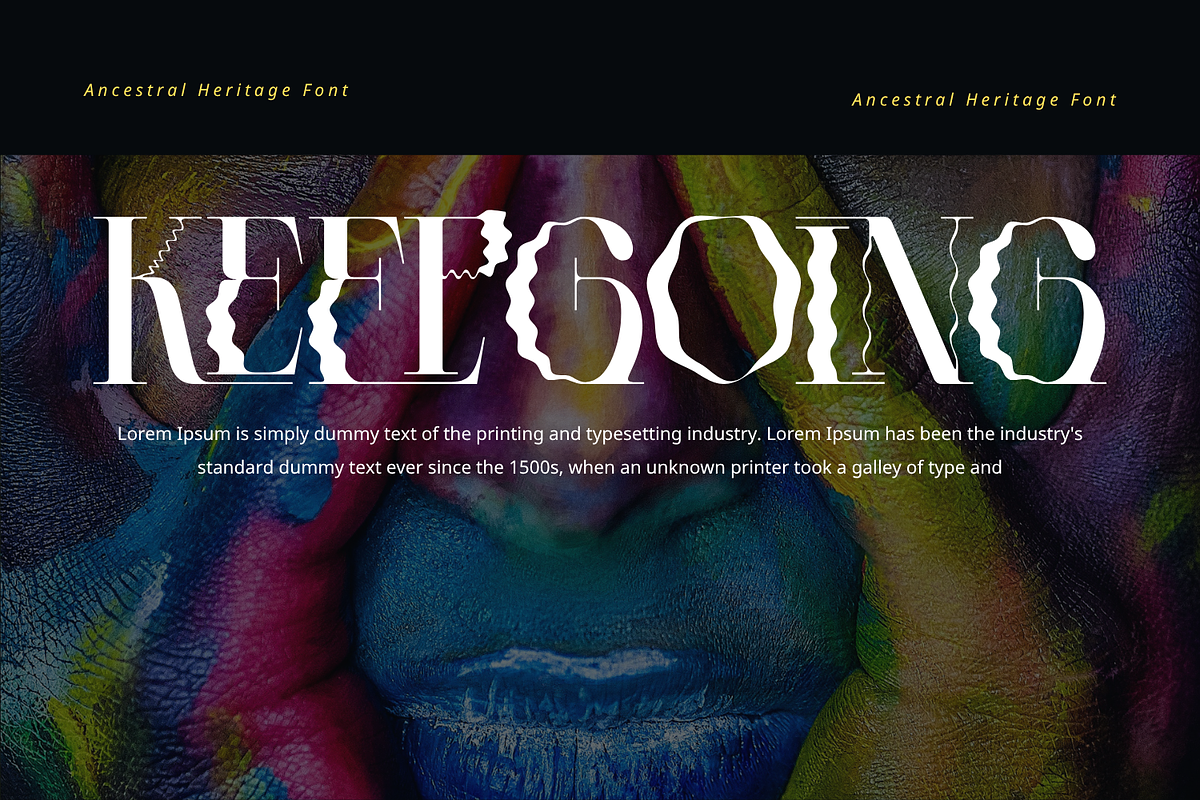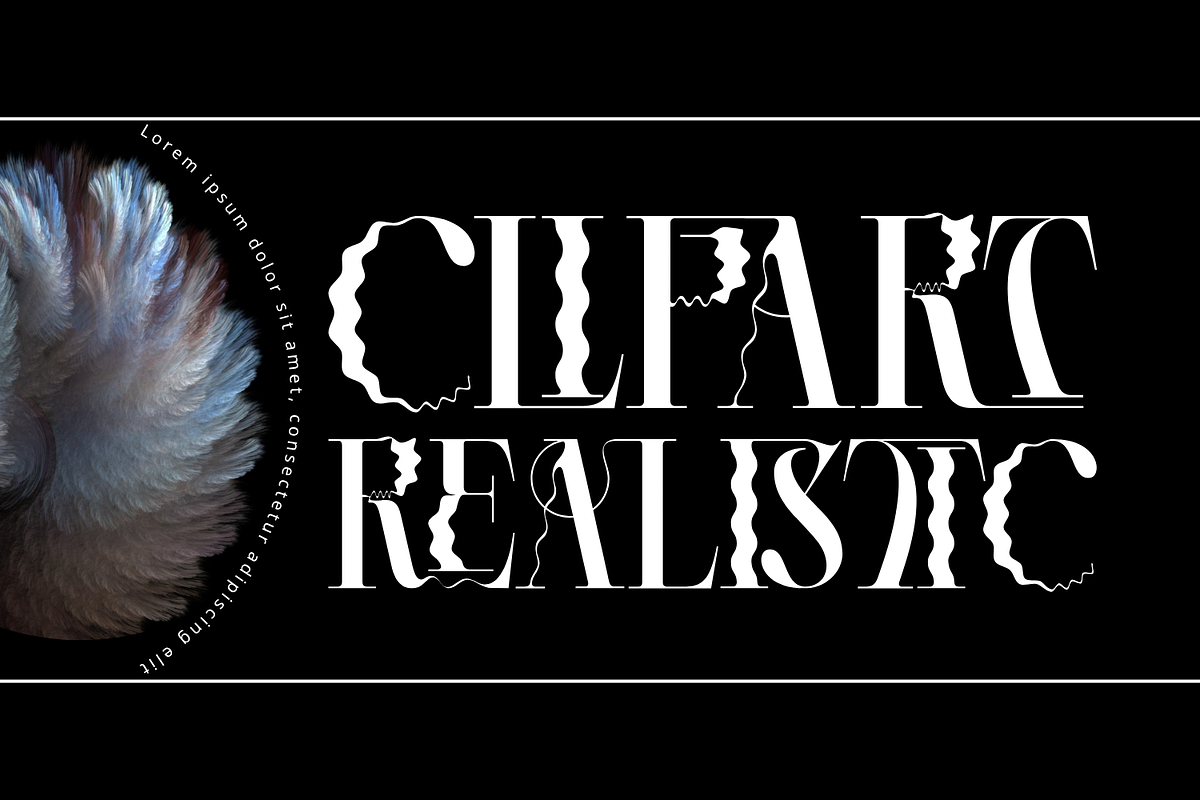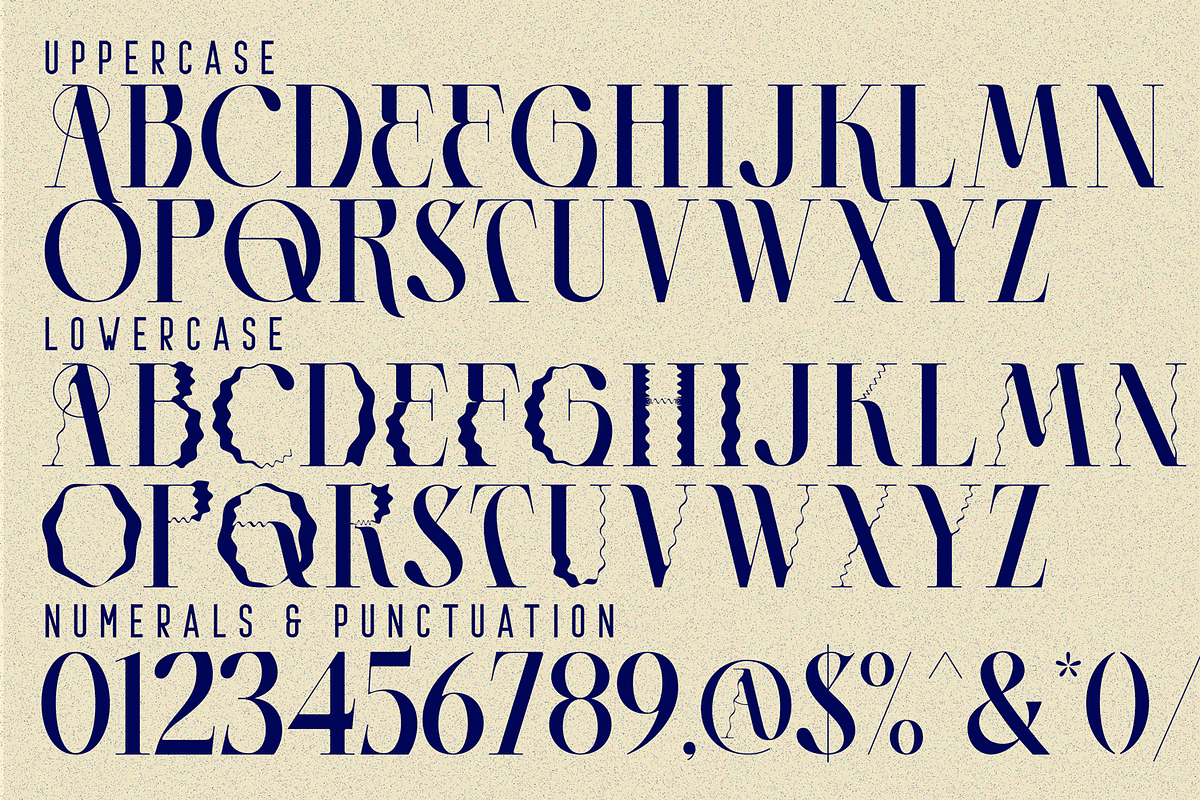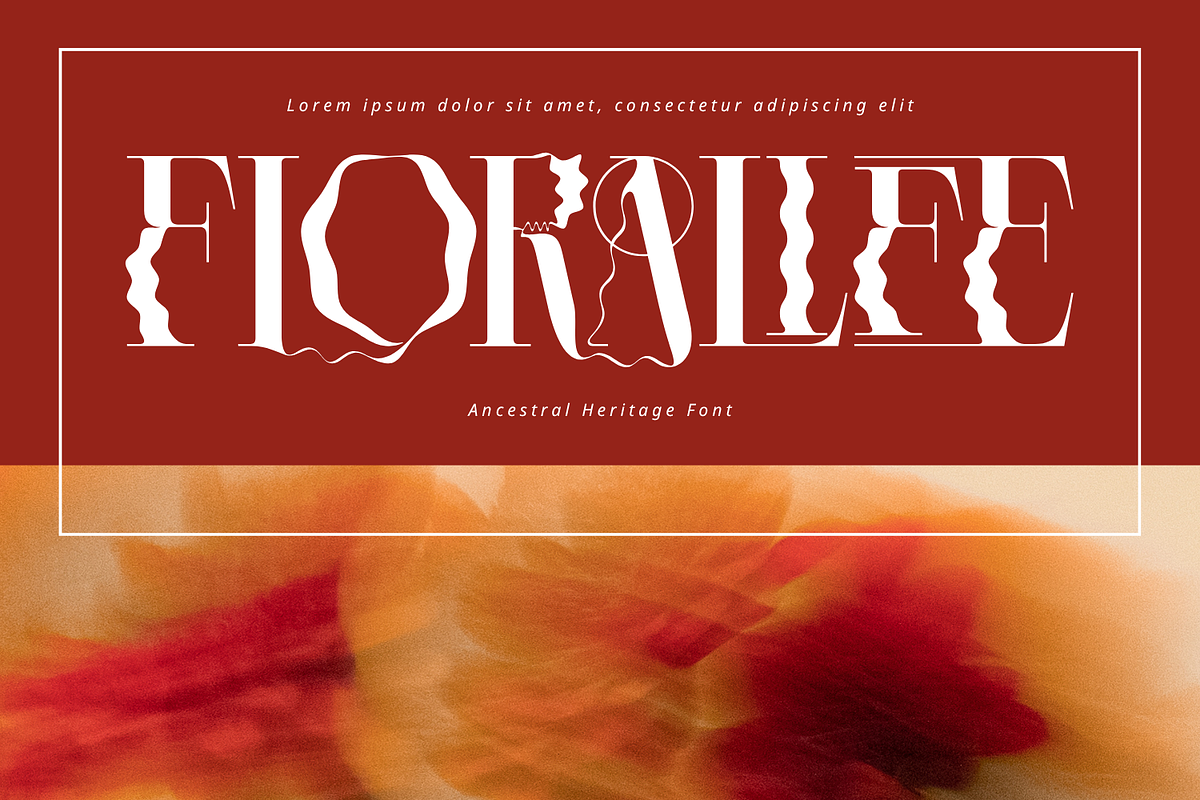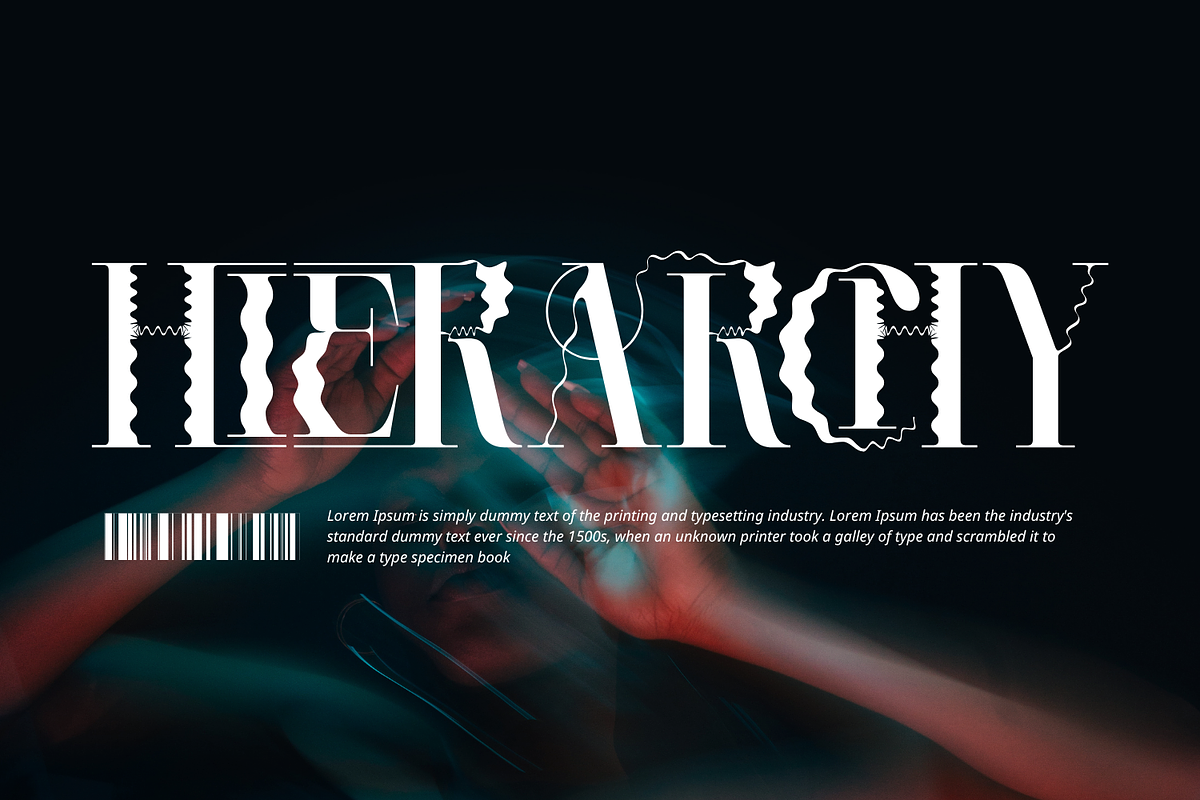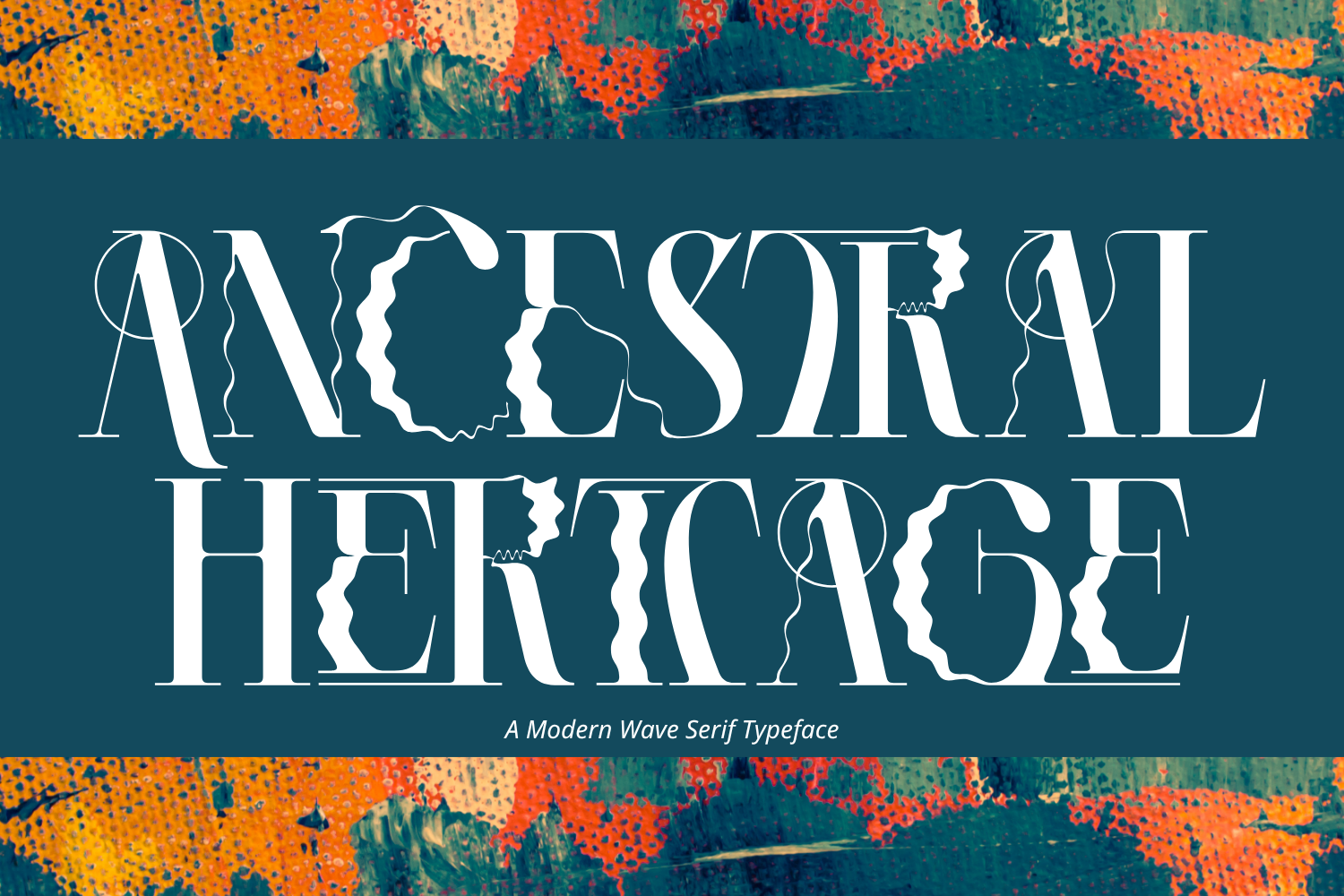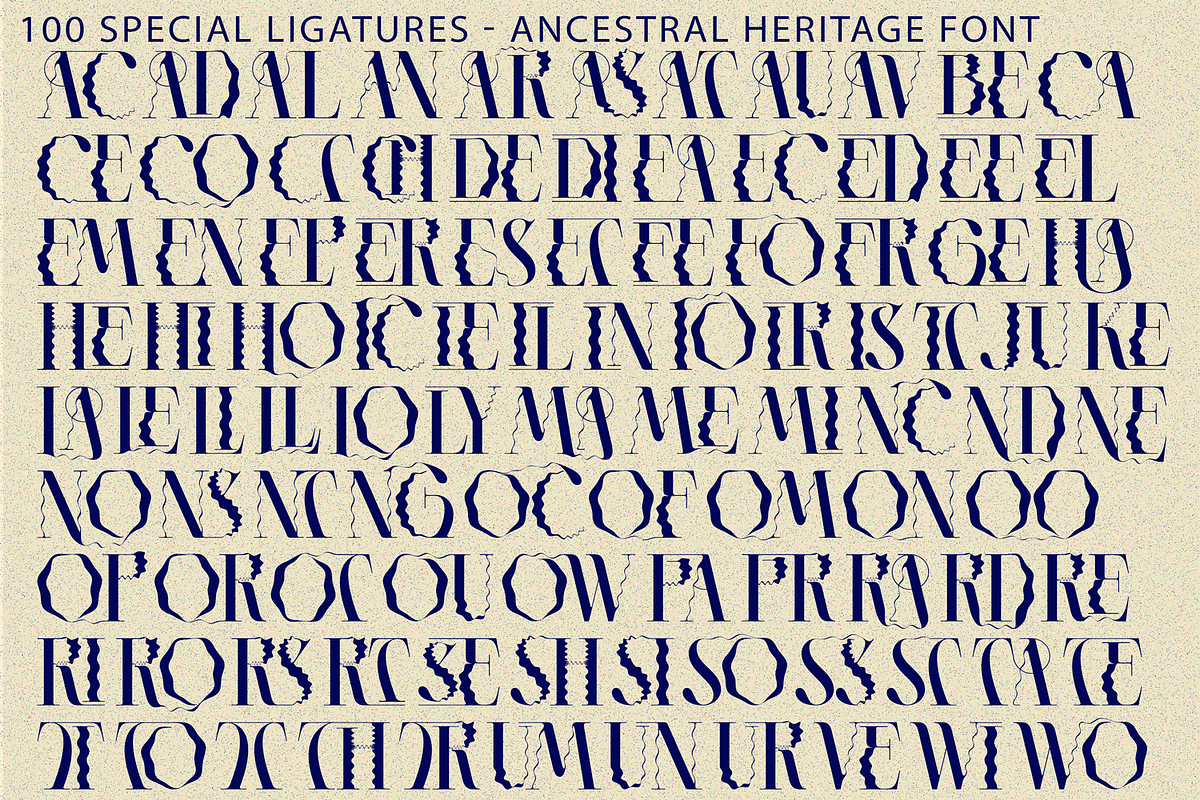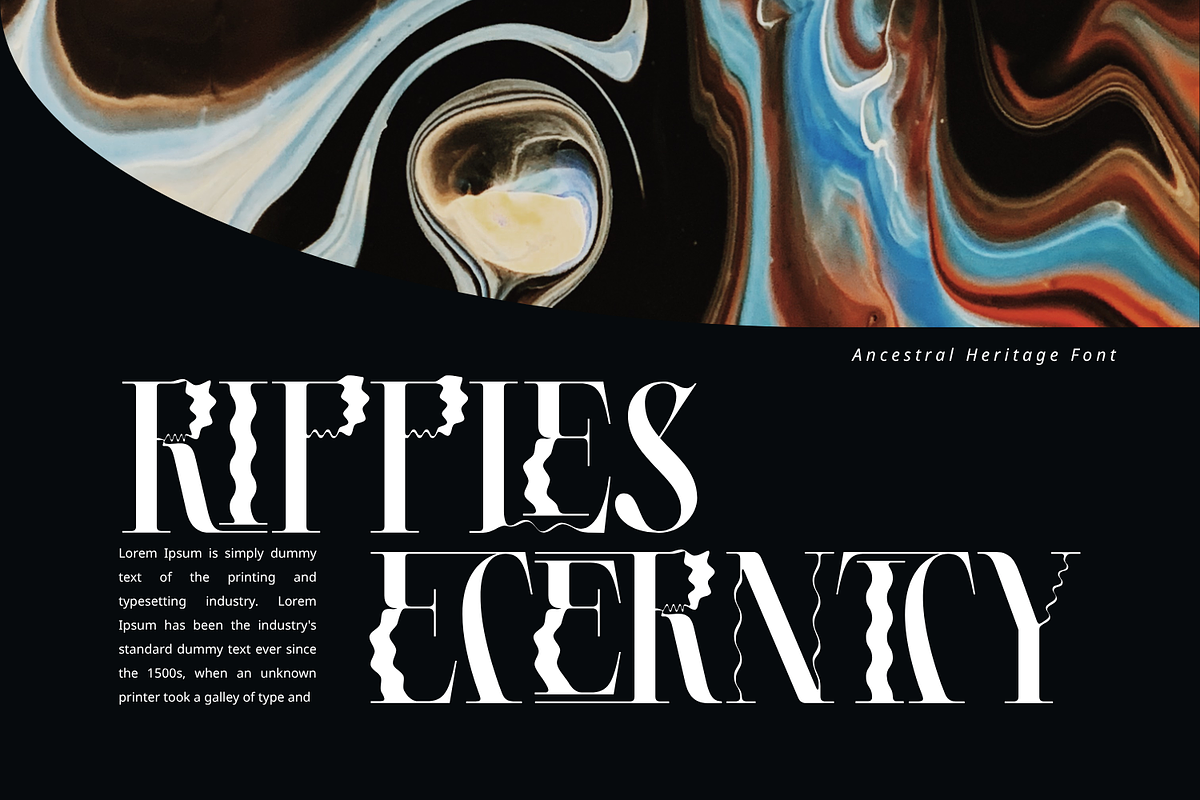
Ancestral Heritage - Distorted Font
Ancestral Heritage - Distorted Font is an experimental high-contrast serif display font inspired by ancestral forms, organic textures, and refined editorial typography. Featuring elegant serif structures combined with irregular carved details and delicate ornamental lines, this typeface delivers a distinctive balance between classic sophistication and artistic imperfection. Its dramatic letterforms create a strong visual presence, while the organic cut details add depth, movement, and handcrafted character. Ancestral Heritage is perfect for luxury branding, book covers, cultural projects, fashion editorials, posters, packaging, and premium visual identities.
🔤Features:
Uppercase & Lowercase Letters
Around 100 Special Ligatures & Alternates
Accented Characters for multilingual support
🔤About 100 ligatures combined with Stylistic Alternates Font:
ac ad al an ar as at au av be ca ce ch co ct de di ea ec ed ee el em en ep er es et fe fo fr ge ha he hi ho ie ic il in io ir is it ju ke la le li ll lo ly ma me mi nc nd ne ng no nt ns oc of om on oo op or ot ou ow pa pr ra rd re ri ro rs rt se sh si so ss st ta te th ti to tr tt um un ur ve wi wo